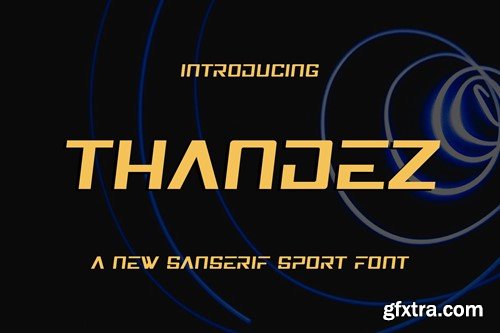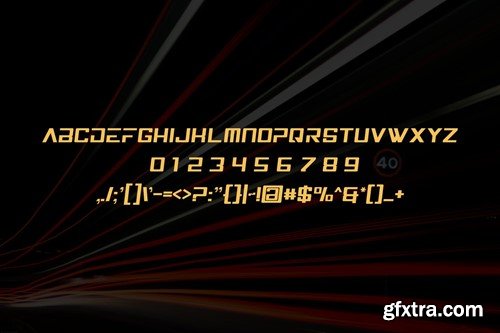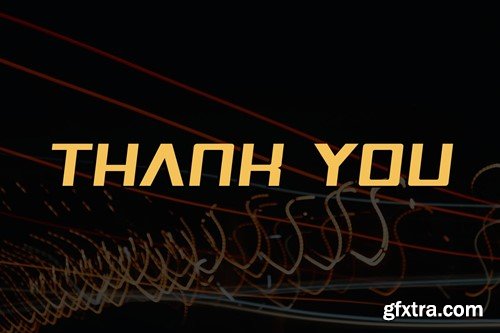
Thandez Font QBQ7VLS
Thandez Font
Introducing our new product Thandez Font
• Very suitable for flyer, posters, novel, letterhead, or any design requirements that you want to be awesome. ____________________________________________________________________________________________